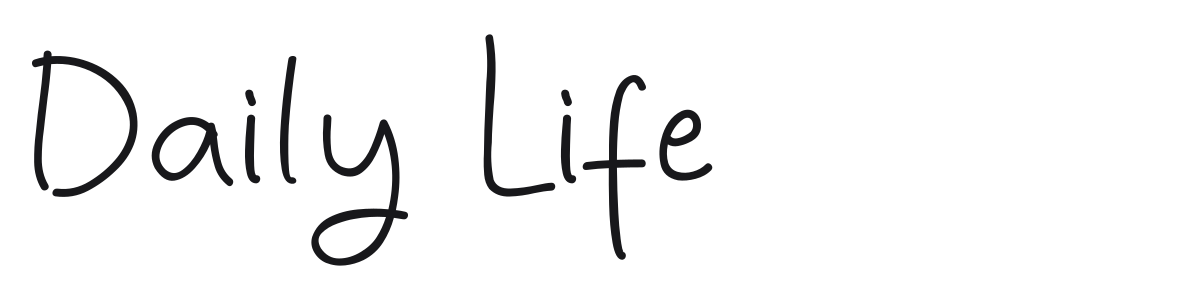
Daily Life
Daily Life is a casual handwritten font with a relaxed, natural pen quality. Strokes flow with gentle irregularity, giving it an authentic personal touch that feels neither overly polished nor sloppy. A natural choice for lifestyle branding, greeting cards, and any project that wants to feel human.